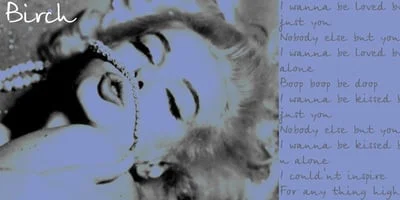
Birch Font
Birch Font is perfect for outdoor adventure branding, forest conservation campaigns, eco-friendly product packaging, nature retreat signage, wooden cabin designs, camping equipment labels, hiking trail markers, environmental organization logos, natural skincare branding, and Scandinavian-inspired designs that celebrate the pristine beauty of northern forests.
This font is exciting because it captures the pure essence and natural elegance of birch trees with tall, slender letterforms that mirror the graceful silhouettes of birch bark patterns and forest verticality. Birch Font features organic textures and clean lines that evoke the serene strength of Nordic woodlands while maintaining sophisticated readability perfect for contemporary nature-focused brands.
Birch Font family includes Regular, Bold, Light, Thin, Condensed, Textured, Bark, and Natural versions, plus forest symbols, leaf motifs, tree icons, and organic ornaments that enhance the authentic woodland aesthetic and provide comprehensive design solutions for environmental and outdoor recreation projects.
For authentic nature and outdoor branding, Birch Font delivers exceptional organic character and environmental appeal. The font's tall, elegant letterforms and natural texture make it perfect for brands in the outdoor recreation, environmental conservation, and sustainable lifestyle sectors. Its clean Nordic aesthetic communicates both strength and serenity, appealing to audiences seeking authentic outdoor experiences. The character set includes contextual alternates and natural variations that simulate bark patterns and organic growth. Professional designers appreciate its ability to convey environmental consciousness and outdoor adventure while maintaining excellent legibility across digital and print applications, making it essential for brands that want to communicate their deep connection to nature and commitment to preserving the wilderness.